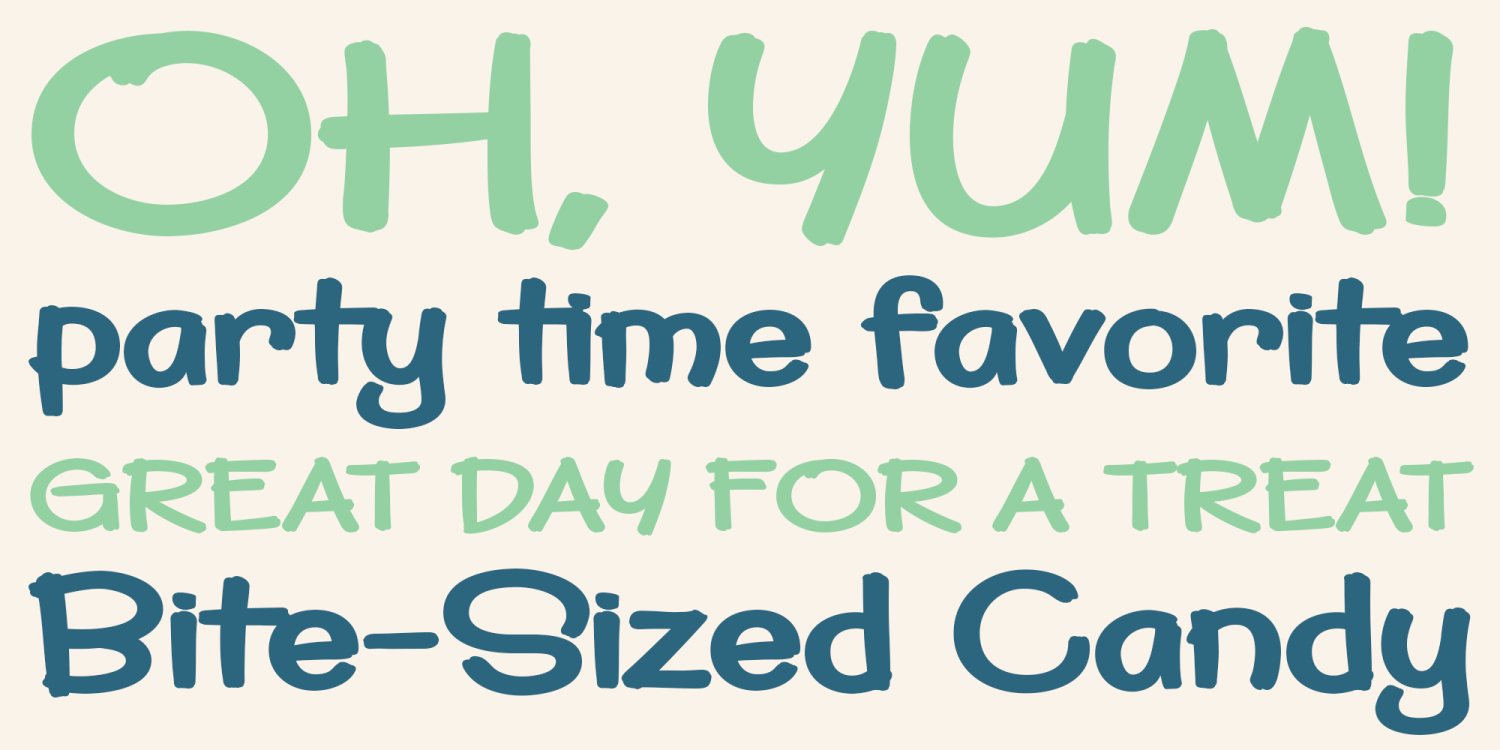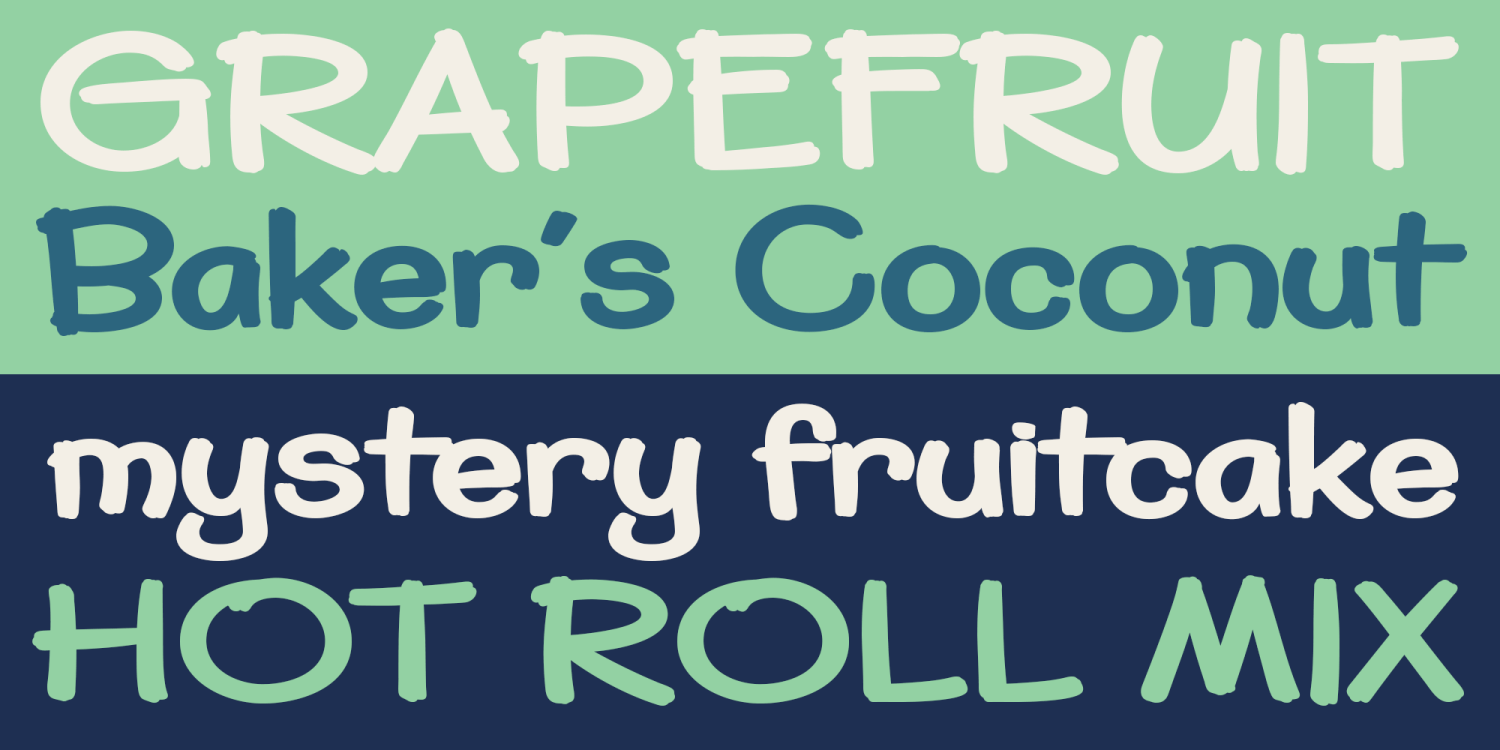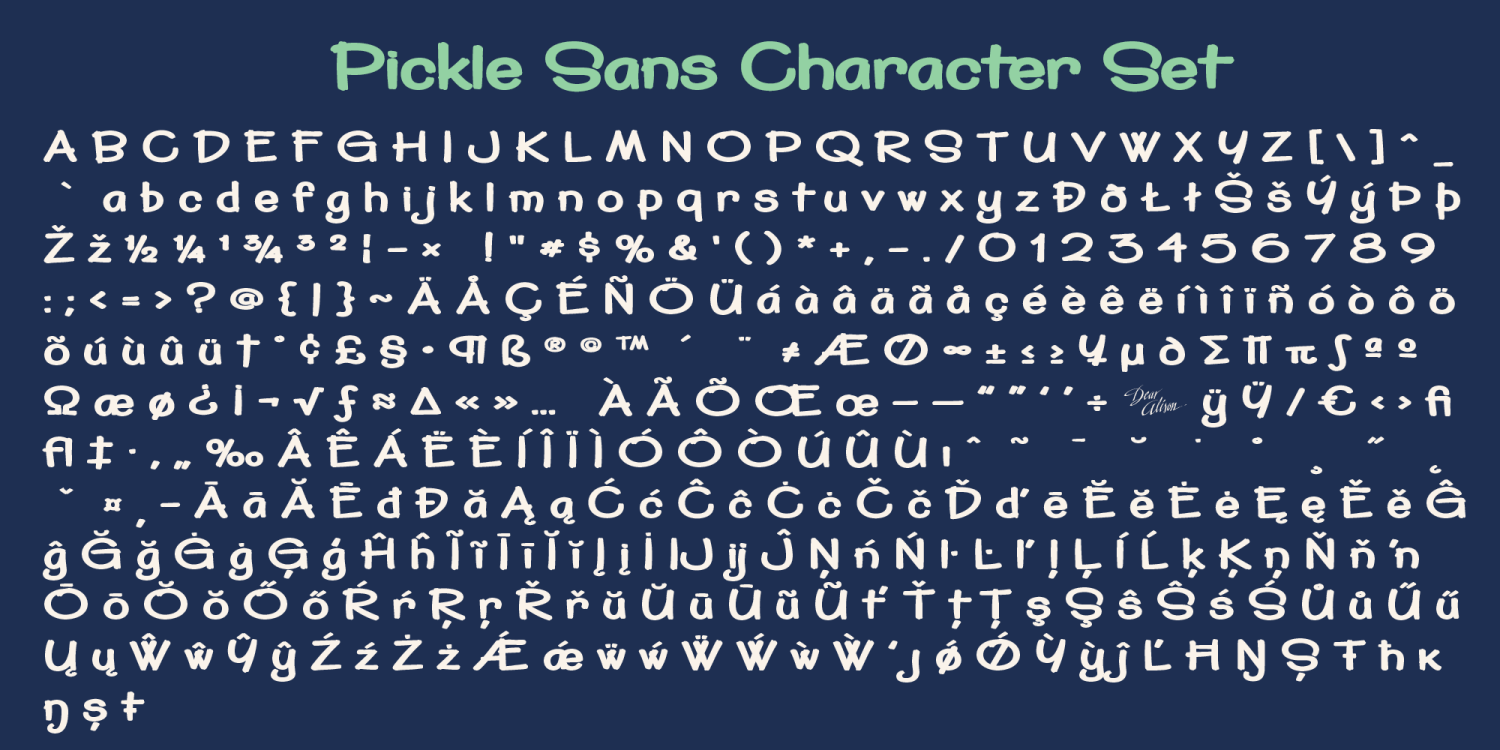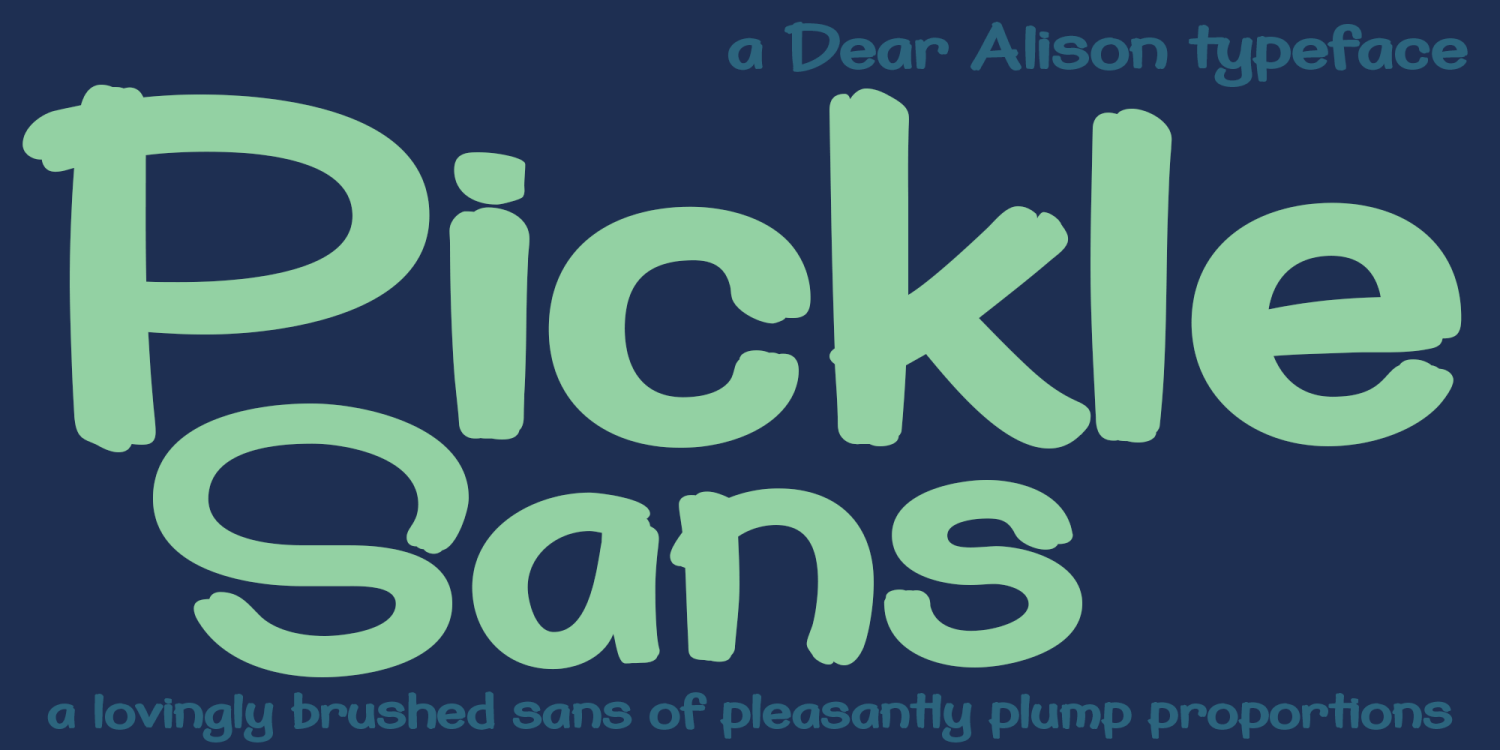
About Pickle Sans
Discover why Pickle Sans is the font the makers of Comic Sans don't want you to know about! Why not convey a casual professionalism that is a step above the competition? Pickle Sans is a bold, fun, attention getter of a font that is a cleanly readable…